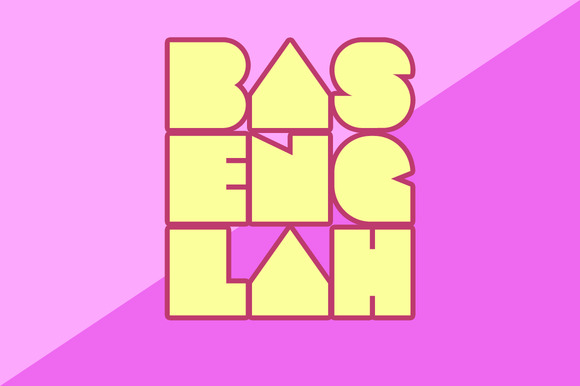
Dive into the realm of typography with the Basenglah Font Pack Font, a remarkable display font family created by Arterfak Project that will transform your designs into captivating masterpieces. This collection comprises eight distinctive fonts, each meticulously crafted to evoke a sense of nostalgia and vintage charm.
Unleash your creativity and explore the endless possibilities offered by the Basenglah Font Pack. From bold and playful headlines to elegant and timeless logos, this font family is a versatile chameleon that adapts seamlessly to a wide array of design projects. Its retro aesthetic effortlessly adds a touch of history and authenticity to your work, making it an ideal choice for vintage-inspired designs, classic branding, and eye-catching posters.
With its comprehensive range of fonts, the Basenglah Font Pack caters to diverse design needs. Experiment with the bold and assertive Basenglah Black for impactful statements, or opt for the graceful curves of Basenglah Light for a touch of understated elegance. The possibilities are boundless, allowing you to craft designs that resonate with your unique vision.
More than just a collection of fonts, the Basenglah Font Pack is an investment in design excellence. Its timeless appeal ensures that your creations will remain captivating and relevant for years to come. Join the ranks of discerning designers who have embraced the Basenglah Font Pack, and elevate your work to new heights of visual impact and emotional resonance.